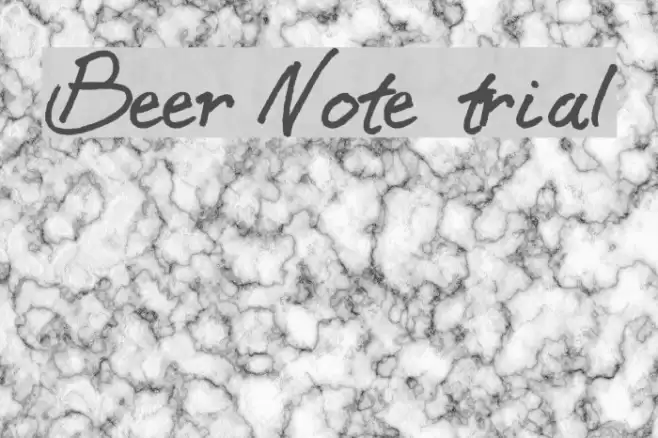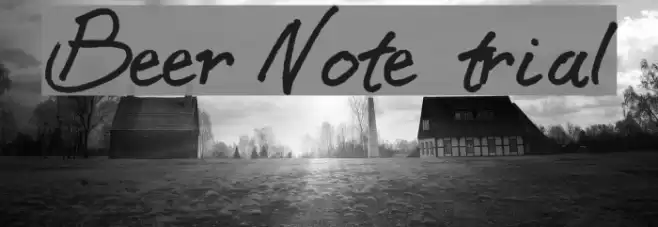
BEER NOTE TRIAL Font
BEER NOTE TRIAL Description
This font features a dynamic and expressive handwritten style, characterized by its fluid and cursive letterforms. The strokes are varied, with some letters exhibiting playful loops and swirls, giving it a lively and personal touch. The uppercase letters maintain a consistent height, while the lowercase letters are slightly more varied in their alignment, adding to the casual and informal feel. The font's overall appearance is reminiscent of quick, yet deliberate handwriting, making it suitable for projects that require a personal or artistic flair.
A lively and expressive handwritten font with fluid, cursive strokes from Uncategorized fonts.
- Proposed Projects: Ideal for greeting cards, personal notes, invitations, and artistic branding projects.
- Overall Style: Casual
- Use Case: Logos, Invitations, Personal notes